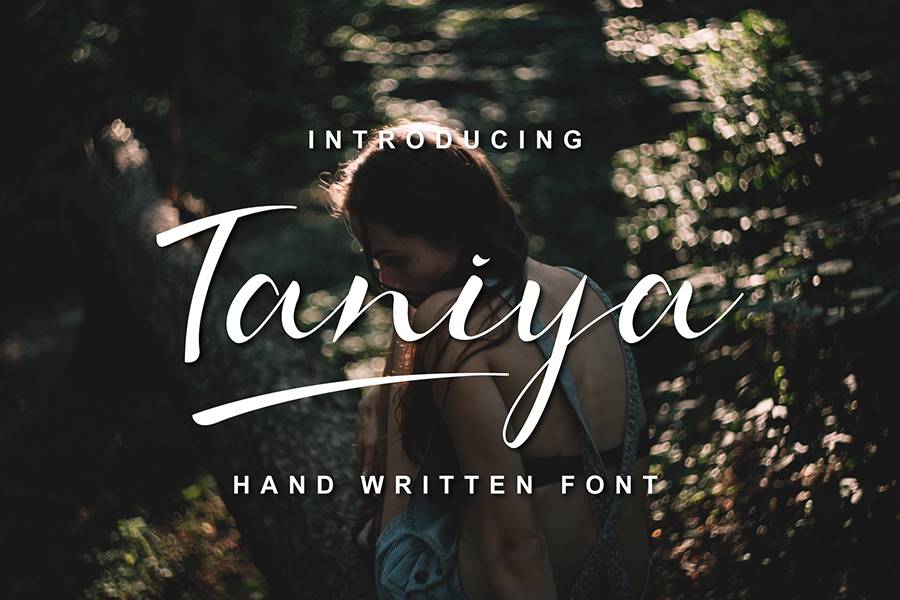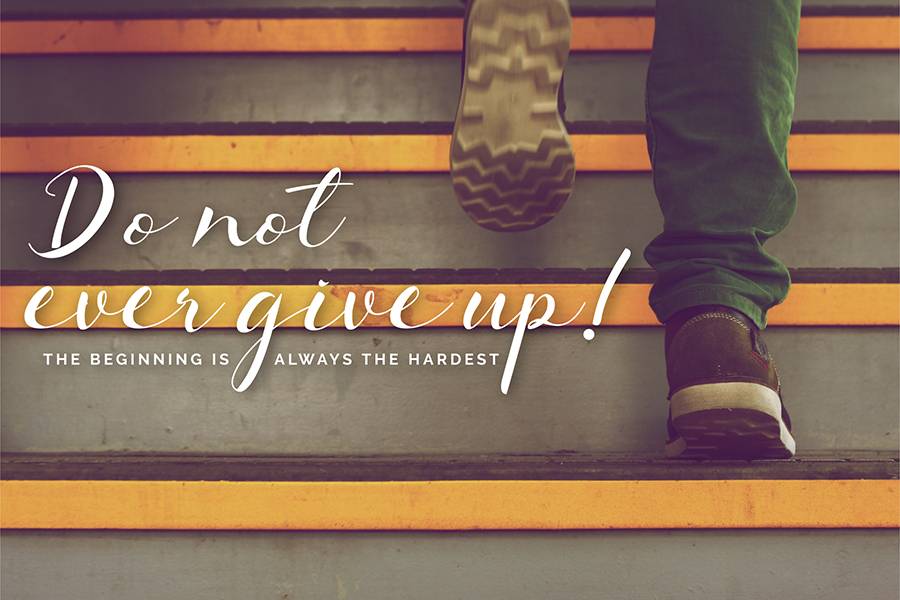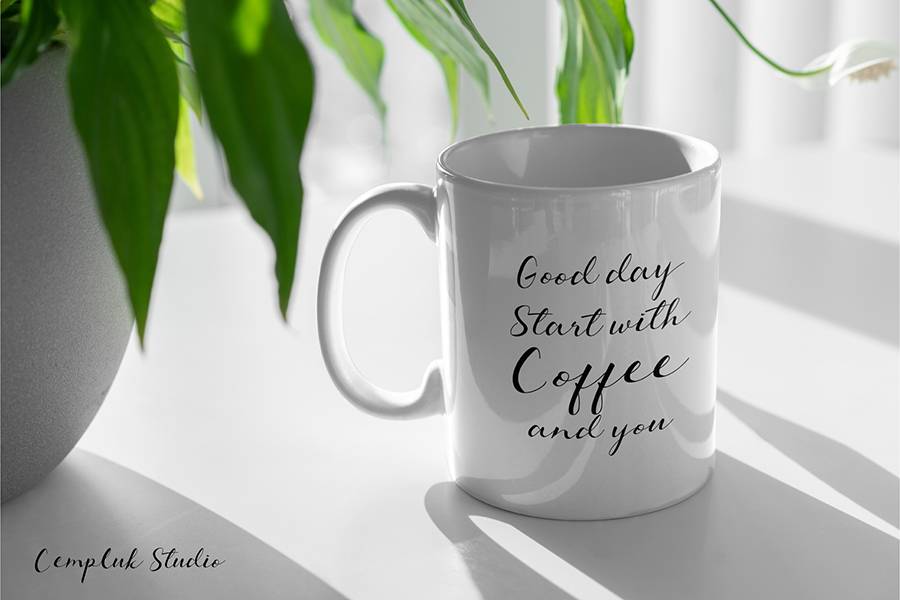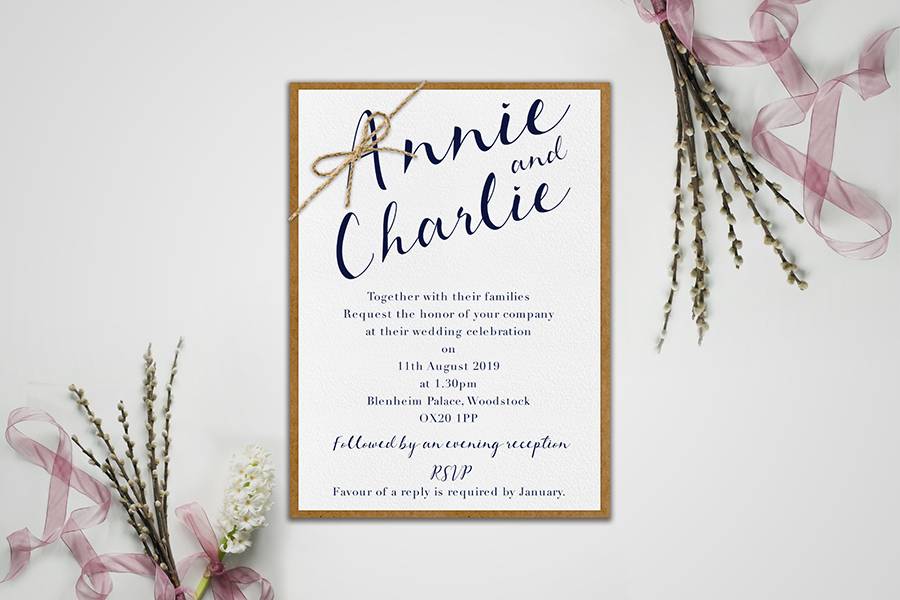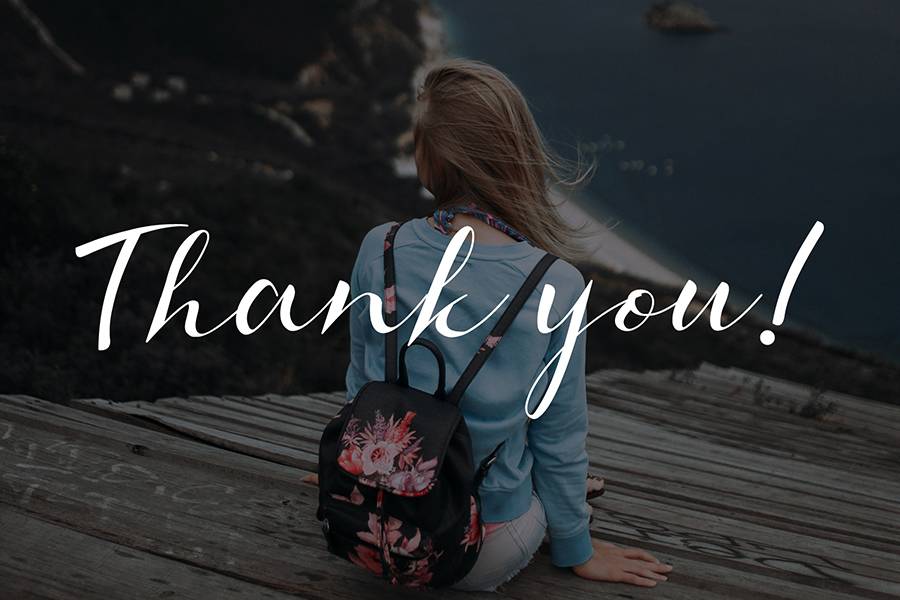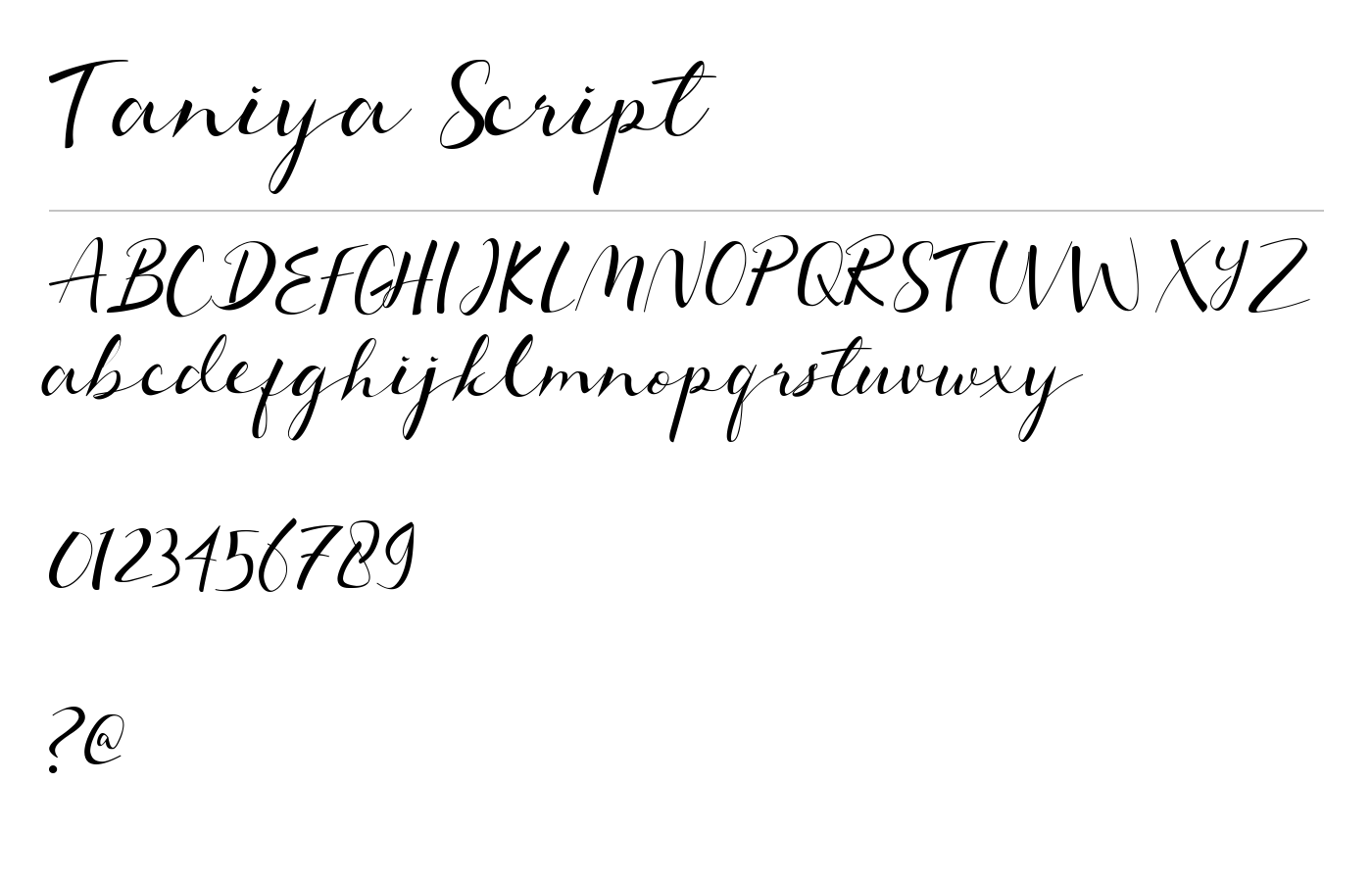
Taniya Handwritten Font Demo
Taniya Handwritten Font Demo is very suitable for photography, watermarks, social media posts, advertisements, logos & branding, invitations, product designs, labels, stationery, wedding designs, product packaging, special events or anything that requires a handwritten taste.